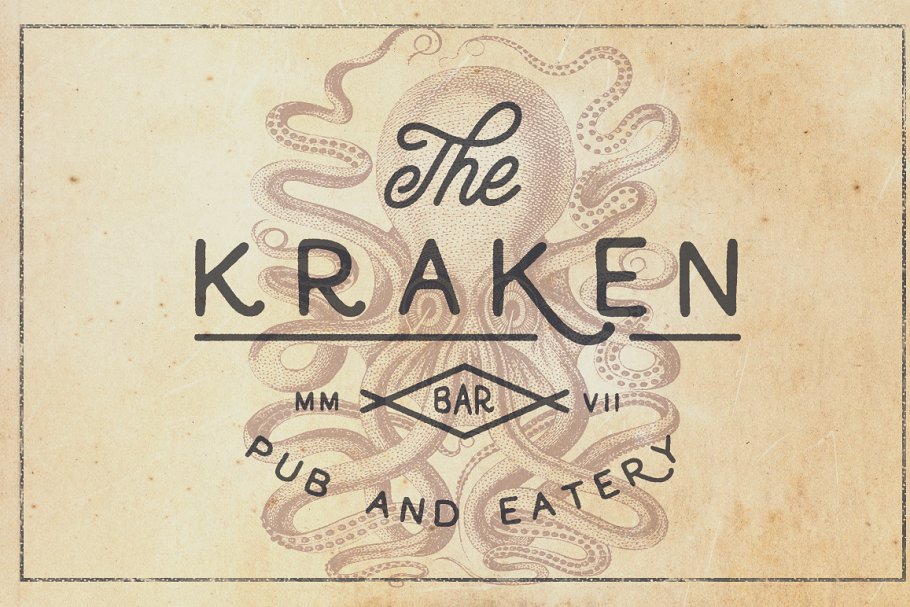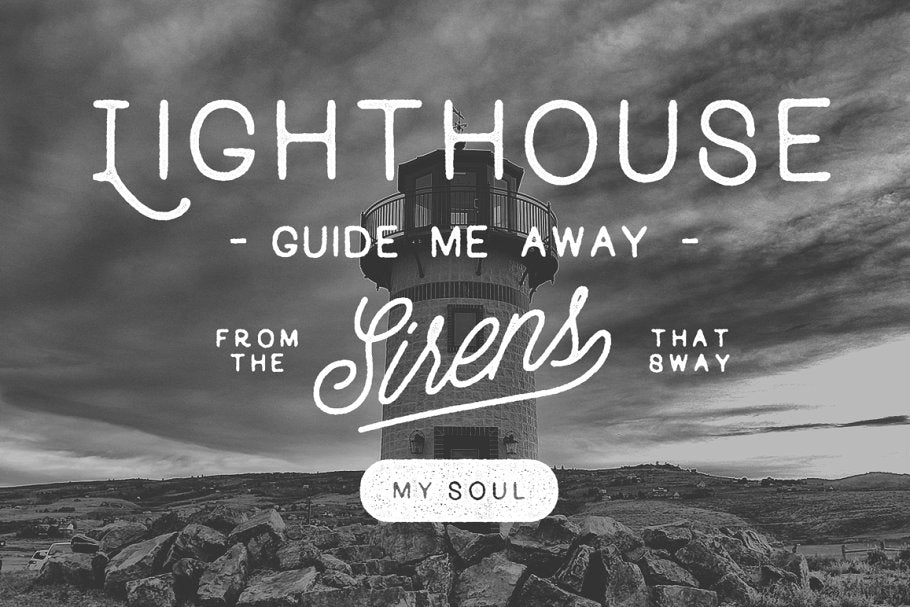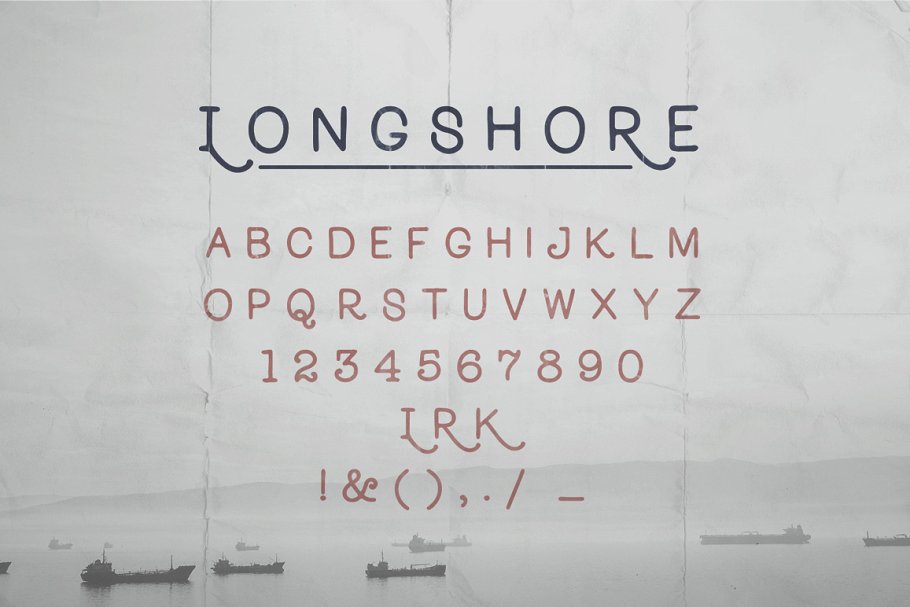
Longshore - Hand Drawn Font
Longshore is a response to the Hand Drawn demand I've seen and is a great addition to Script fonts or custom lettering. It's simplistic but has an aesthetic appeal that will push your project further. With letters A-Z, numbers 0-9 and glyphs that cover the entire keyboard, Longshore is a versatile typeface for posters, logos, quotes, etc. I've also included 3 Alternate capital letters R, K, L. This font is very fun to use and comes at an affordable rate!